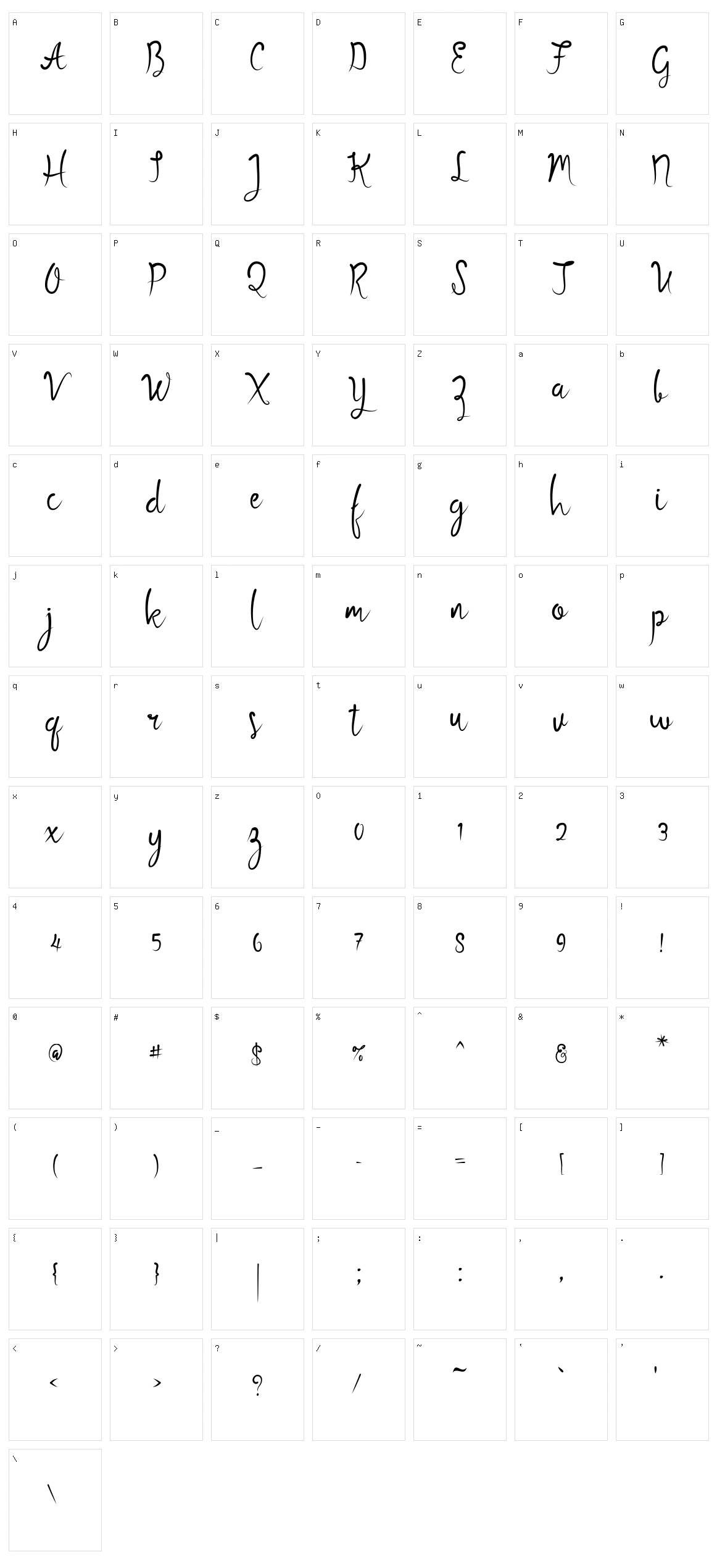
The free font Blueberry is carefully designed by Bonjour Type, showcasing a thoughtful balance of creativity and usability and falls under the Script font style. When you download the ZIP file, it contains only 34.47 KB of font files, making it lightweight and quick to download. Please review the license details below to understand permitted usage and distribution rights. If license information is not available, we recommend using this font for personal projects only or contacting the author directly for commercial usage permissions.